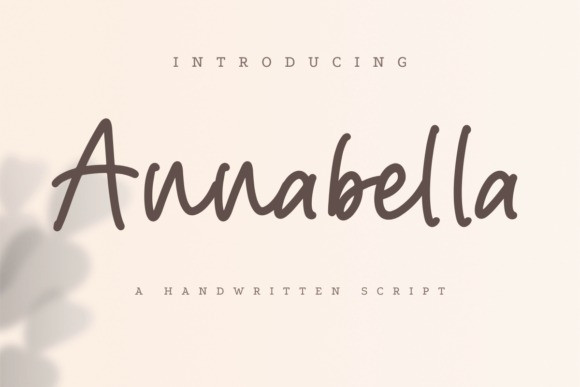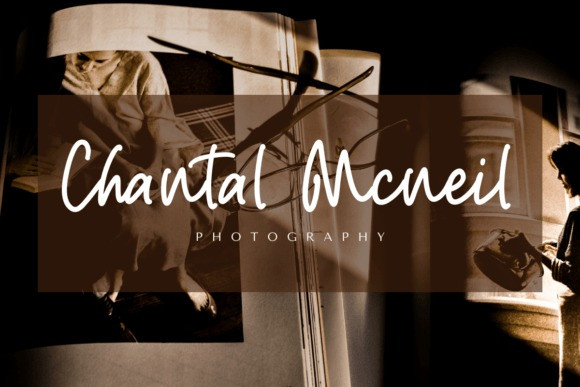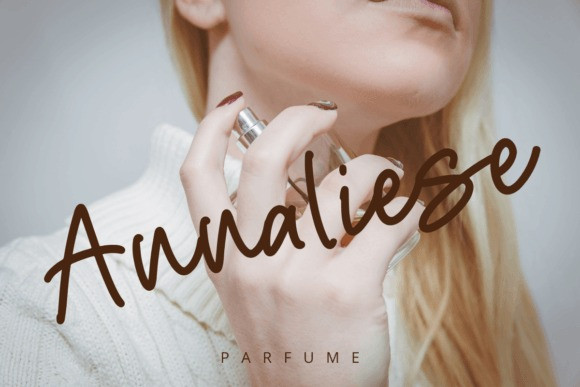
Annabella Font
Annabella is a handwritten font suitable for logos, branding, titles, social media posts, advertisements, product packaging, product designs, labels, photography, special events, web design, etc.